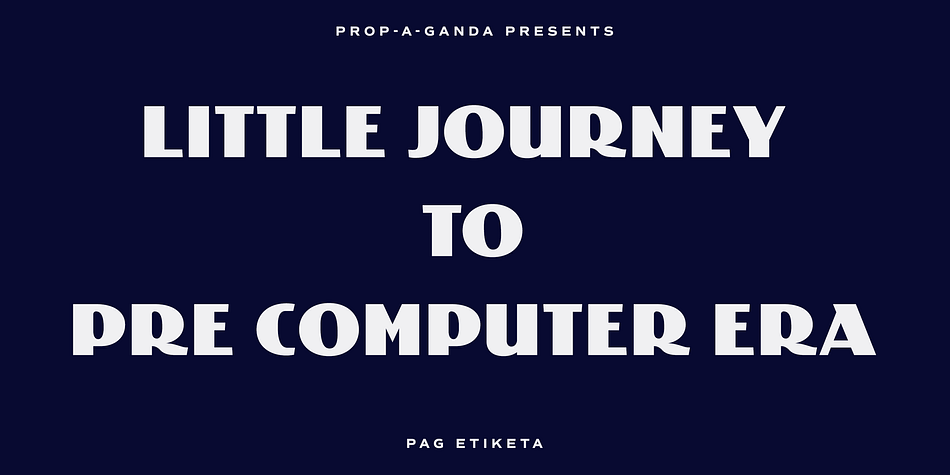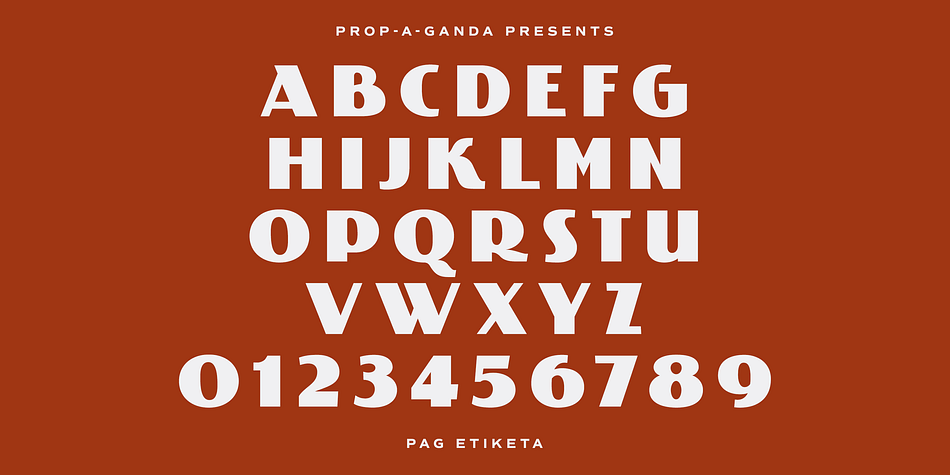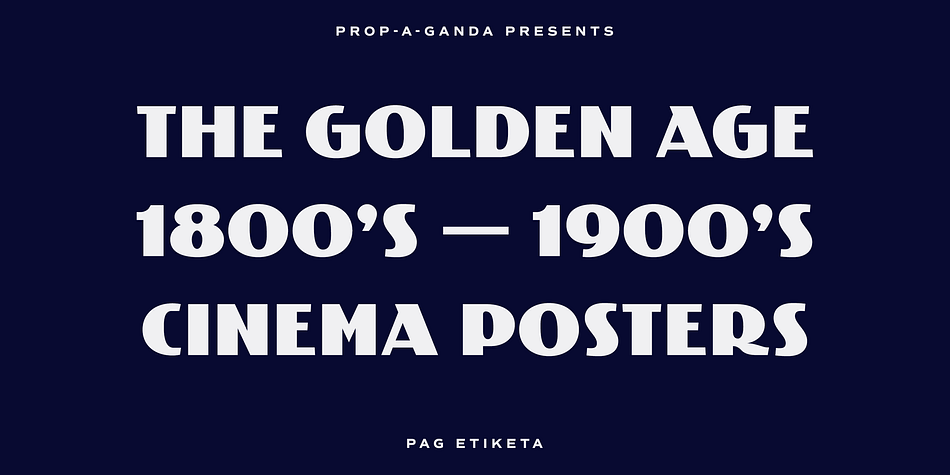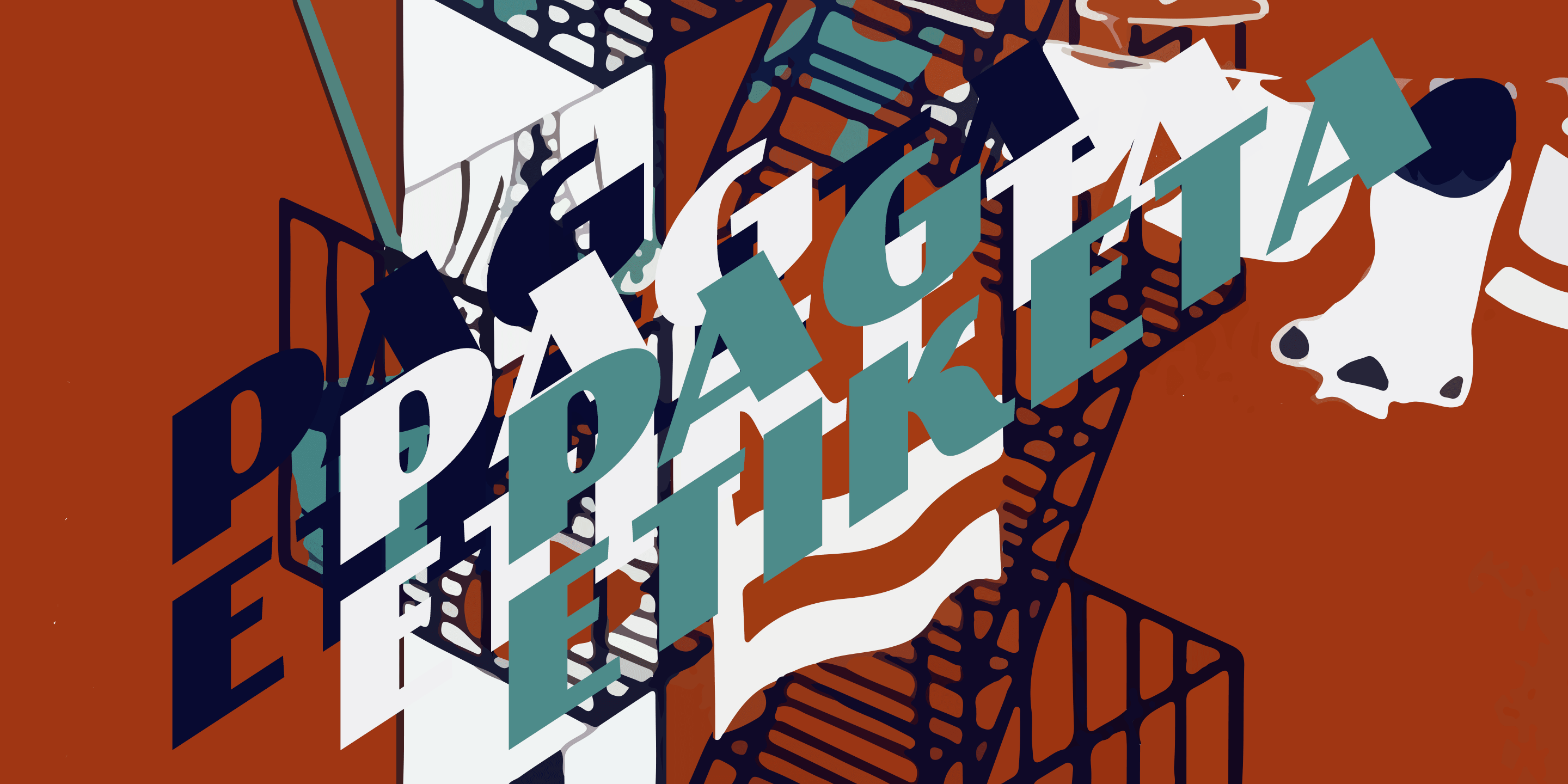
PAG Etiketa is a retro font published by Dharma Type.
Prop-a-ganda(PAG) offers retro-flavored fonts inspired by lettering on retro propaganda posters, retro advertising posters, retro packages all the world over. This is perfect font for your retrospective project.
You may not feel strange if you find PAG Etiketa in news papers, noble film posters, or fashion magazines. This font has both a retro and modern side, so it is an all-rounder font for your design project.